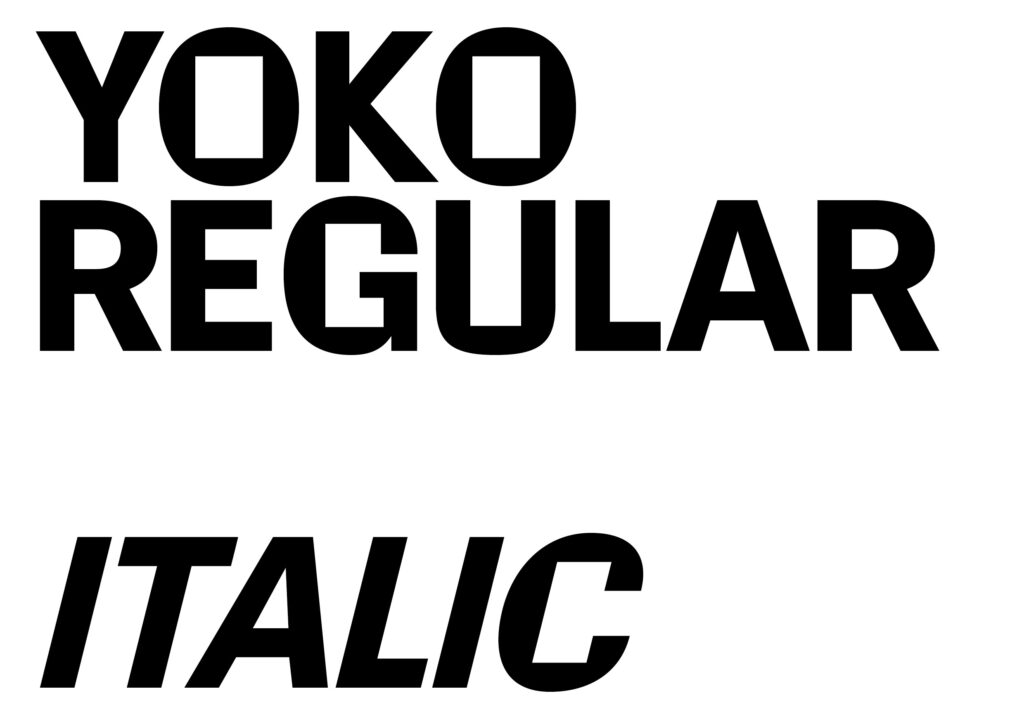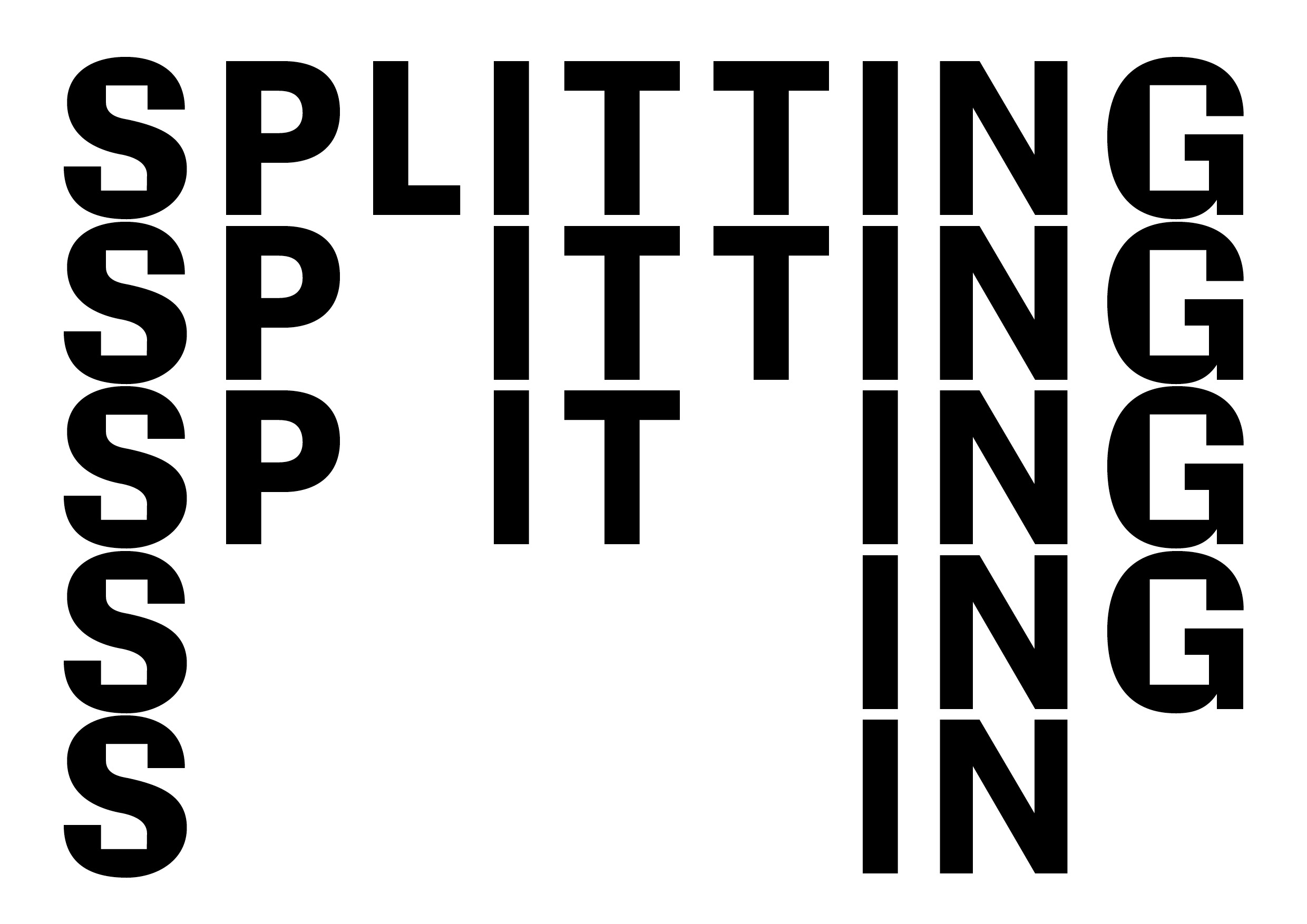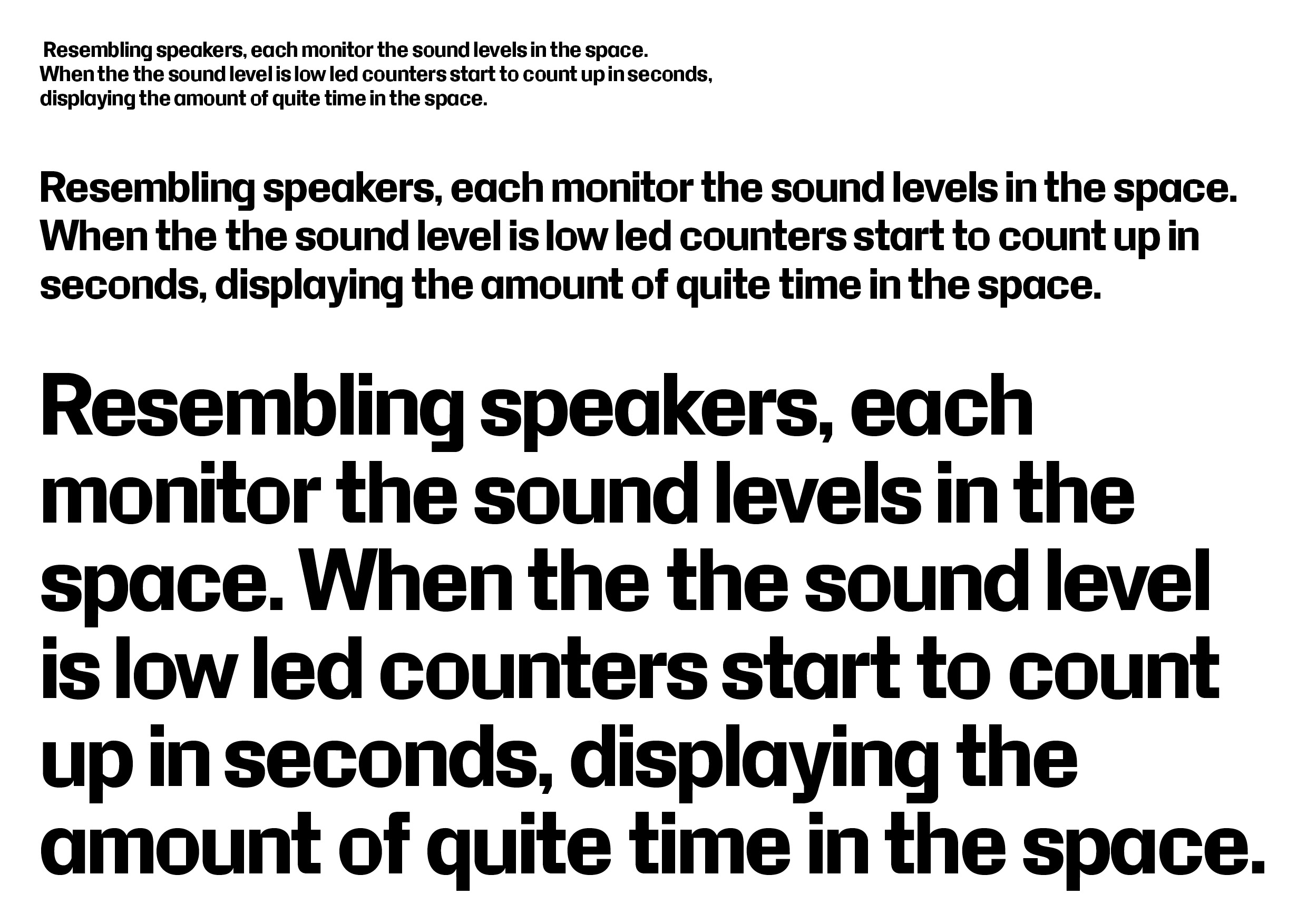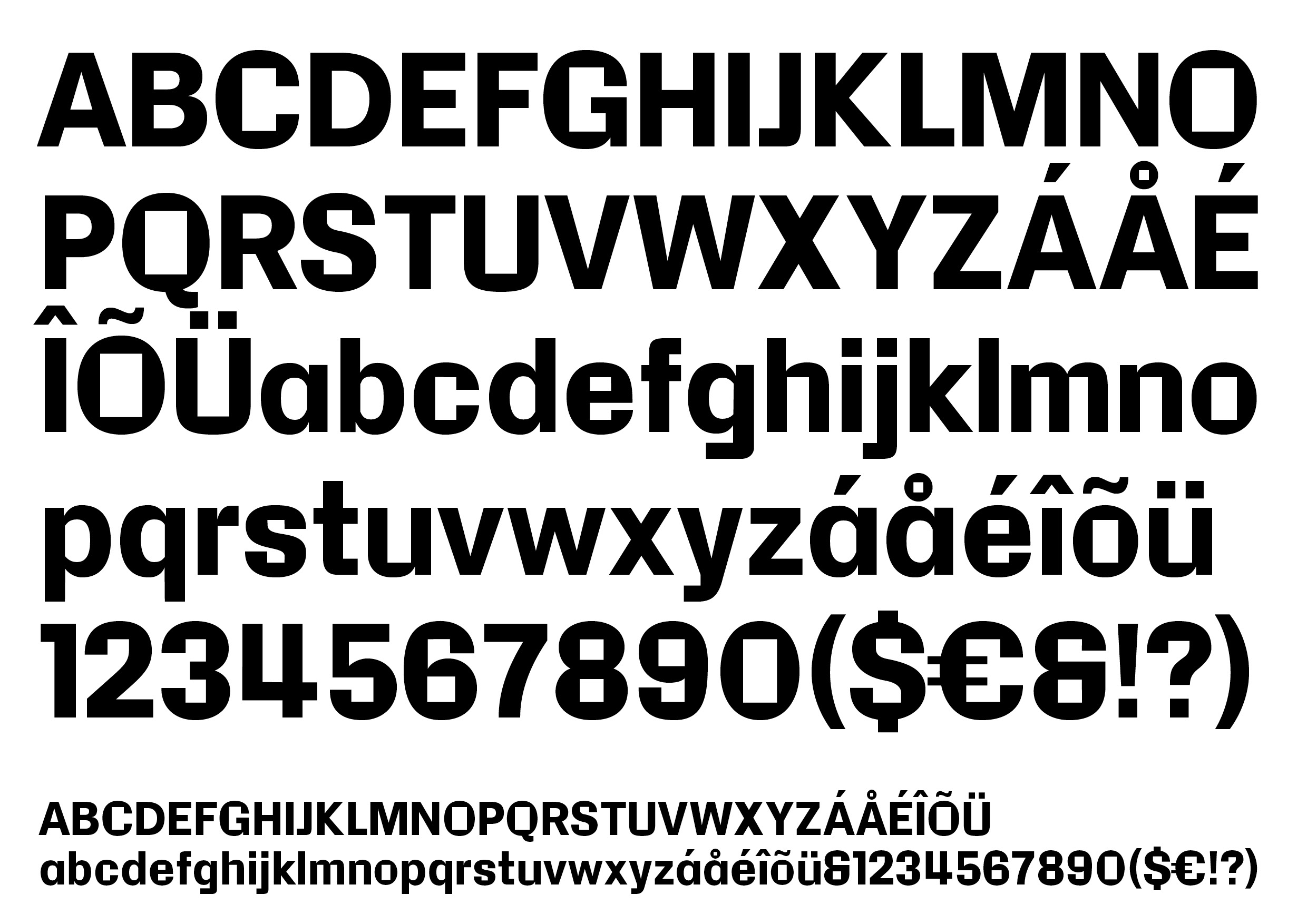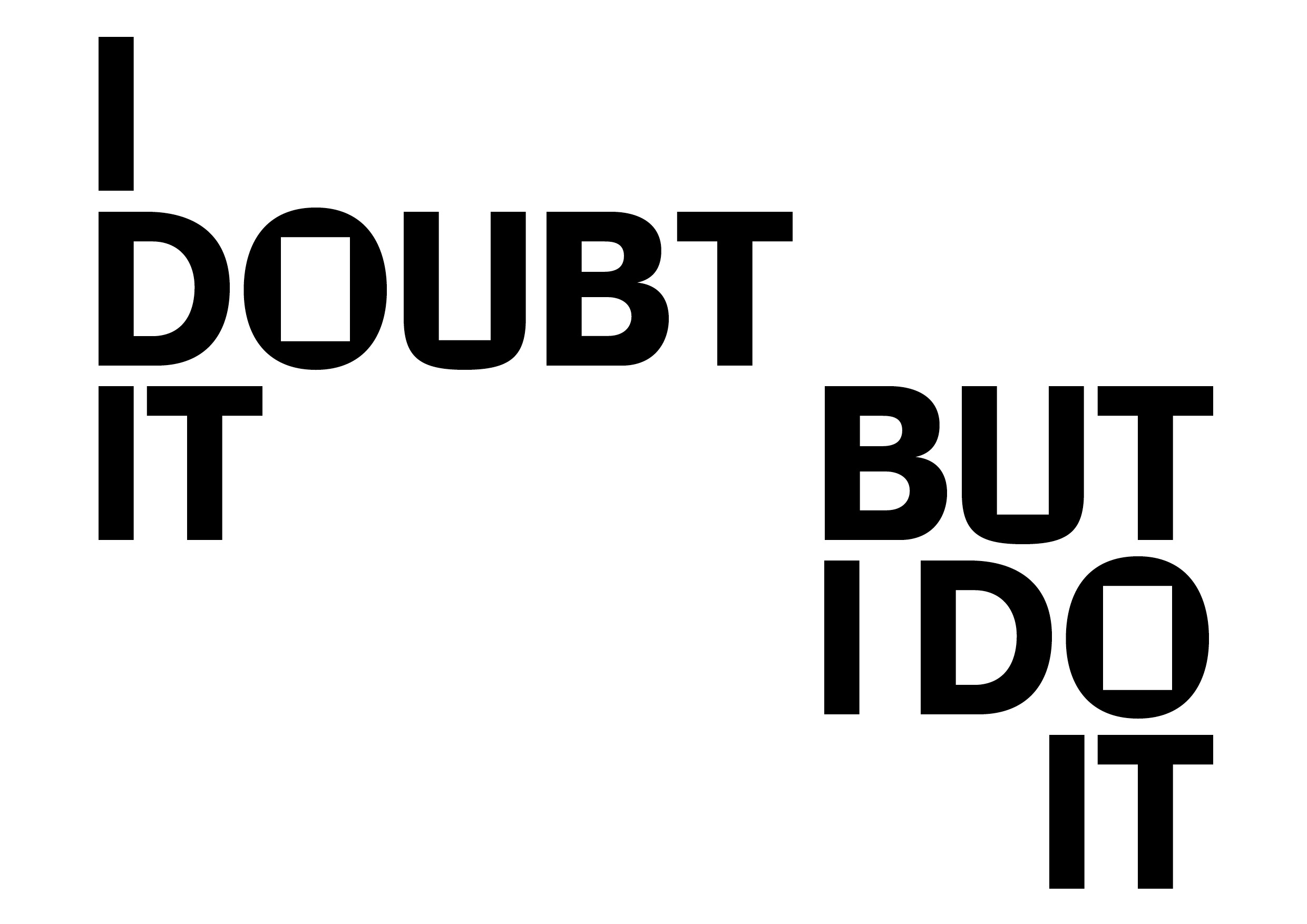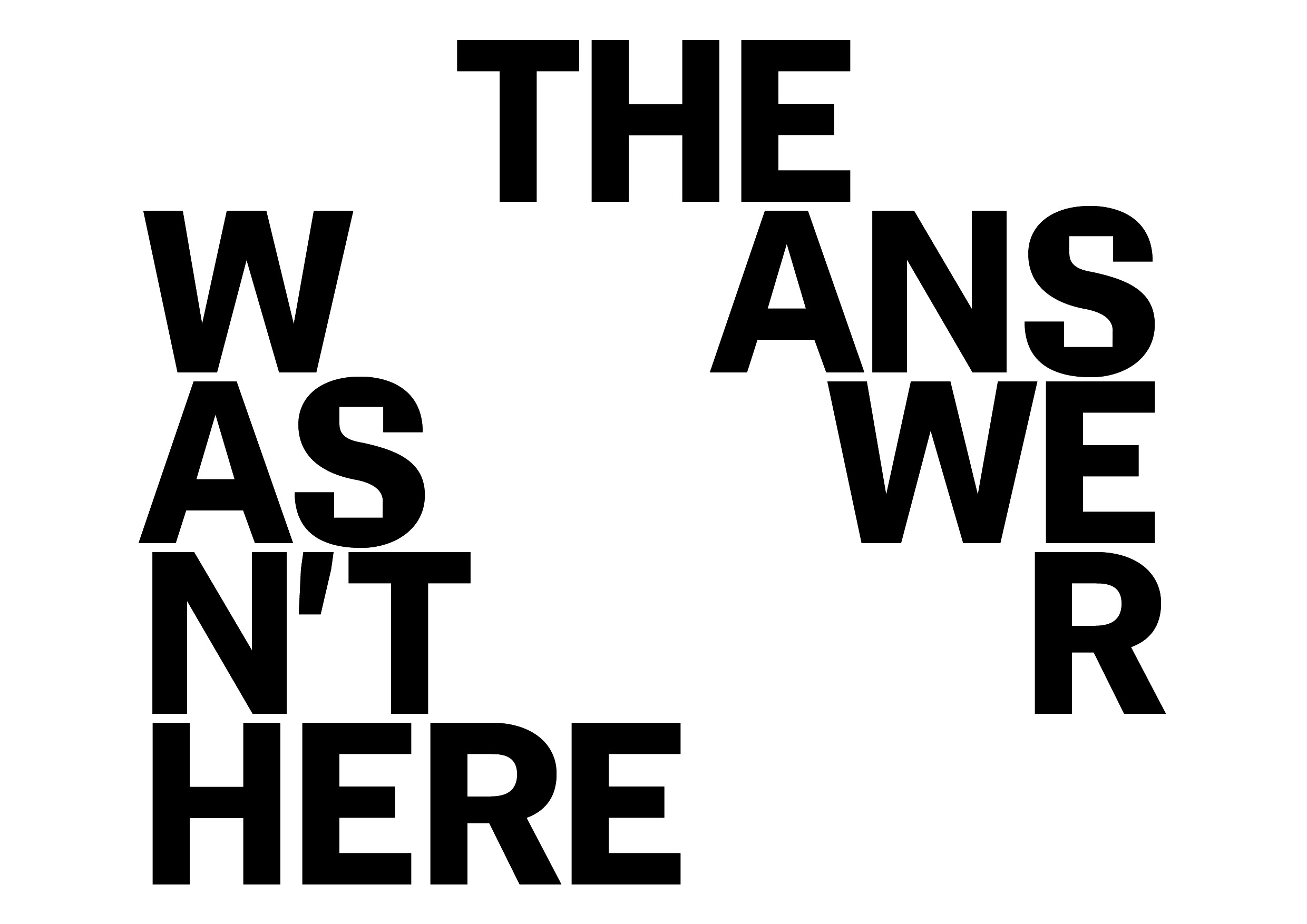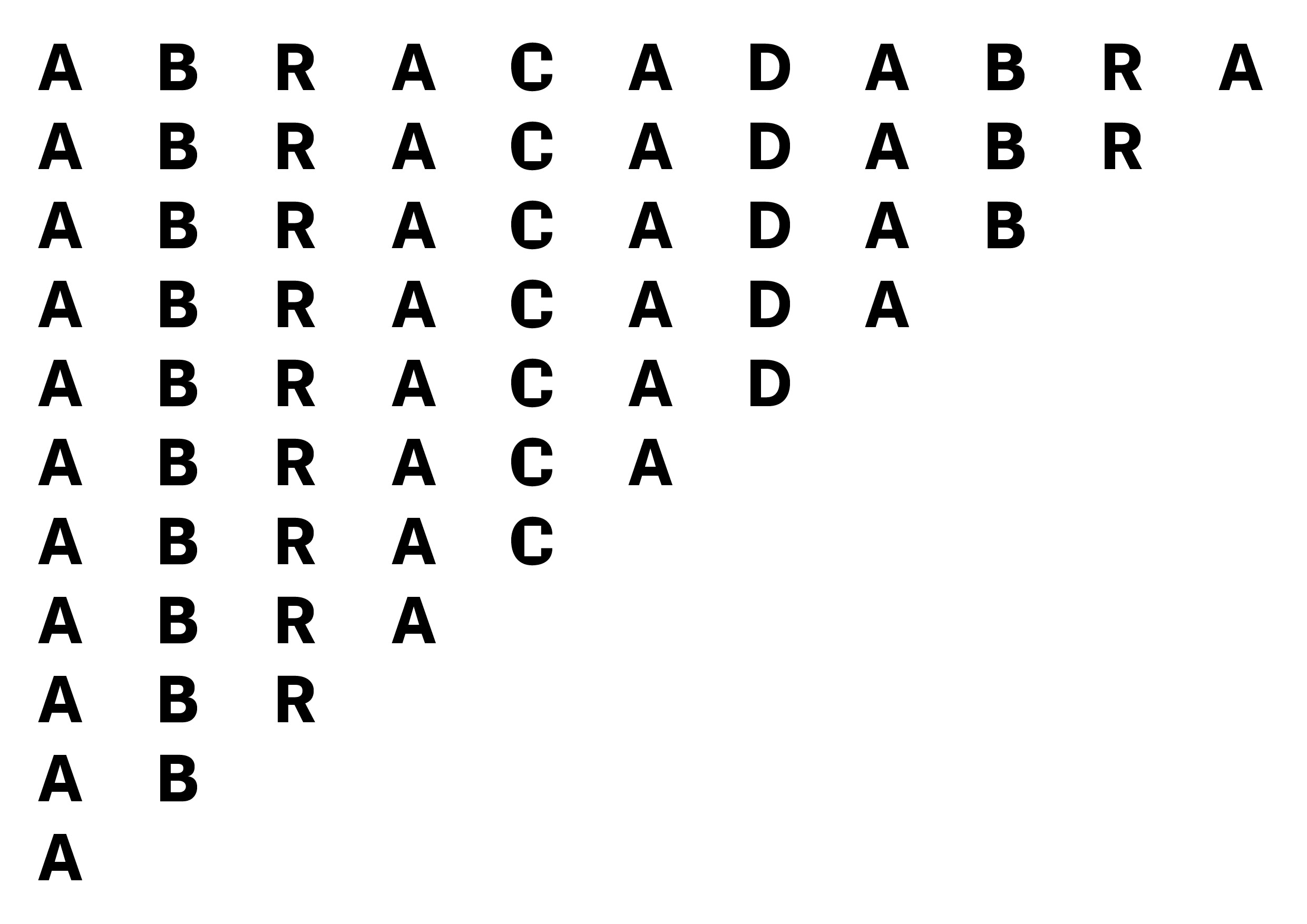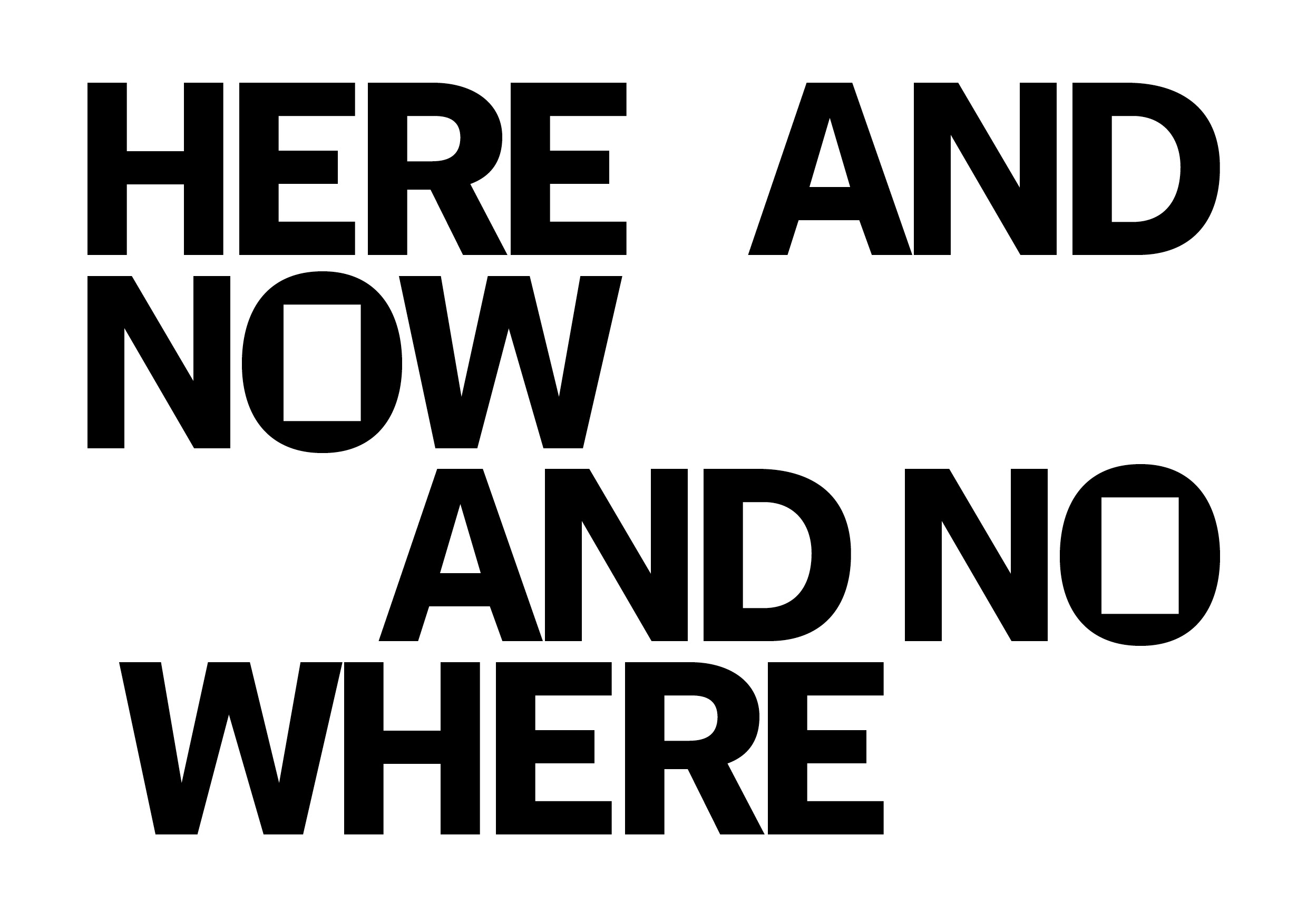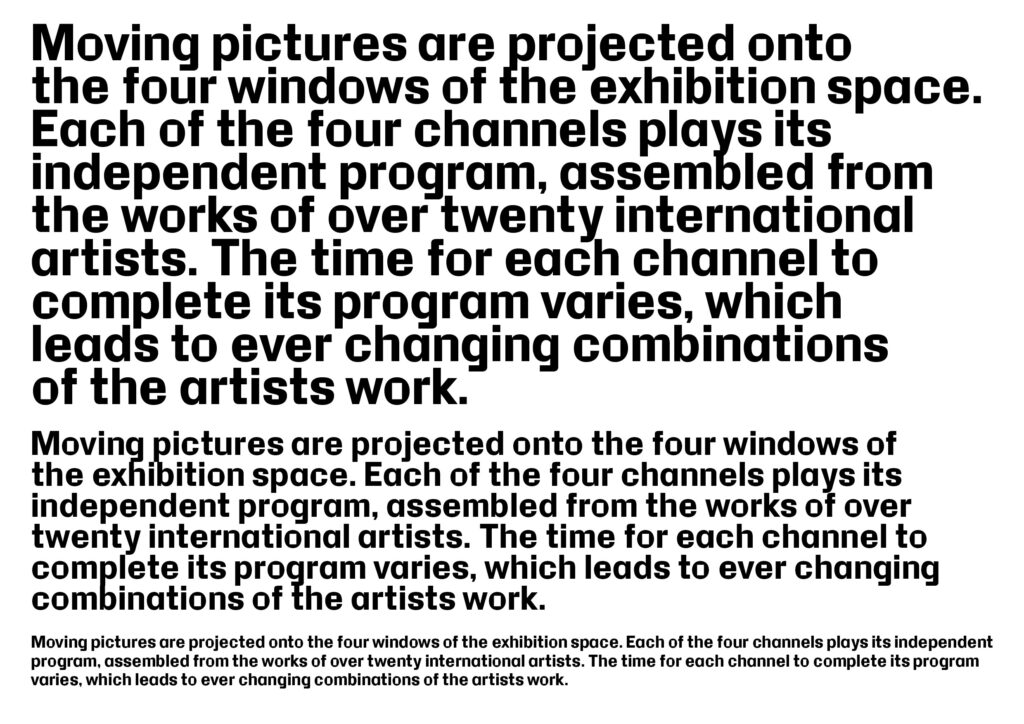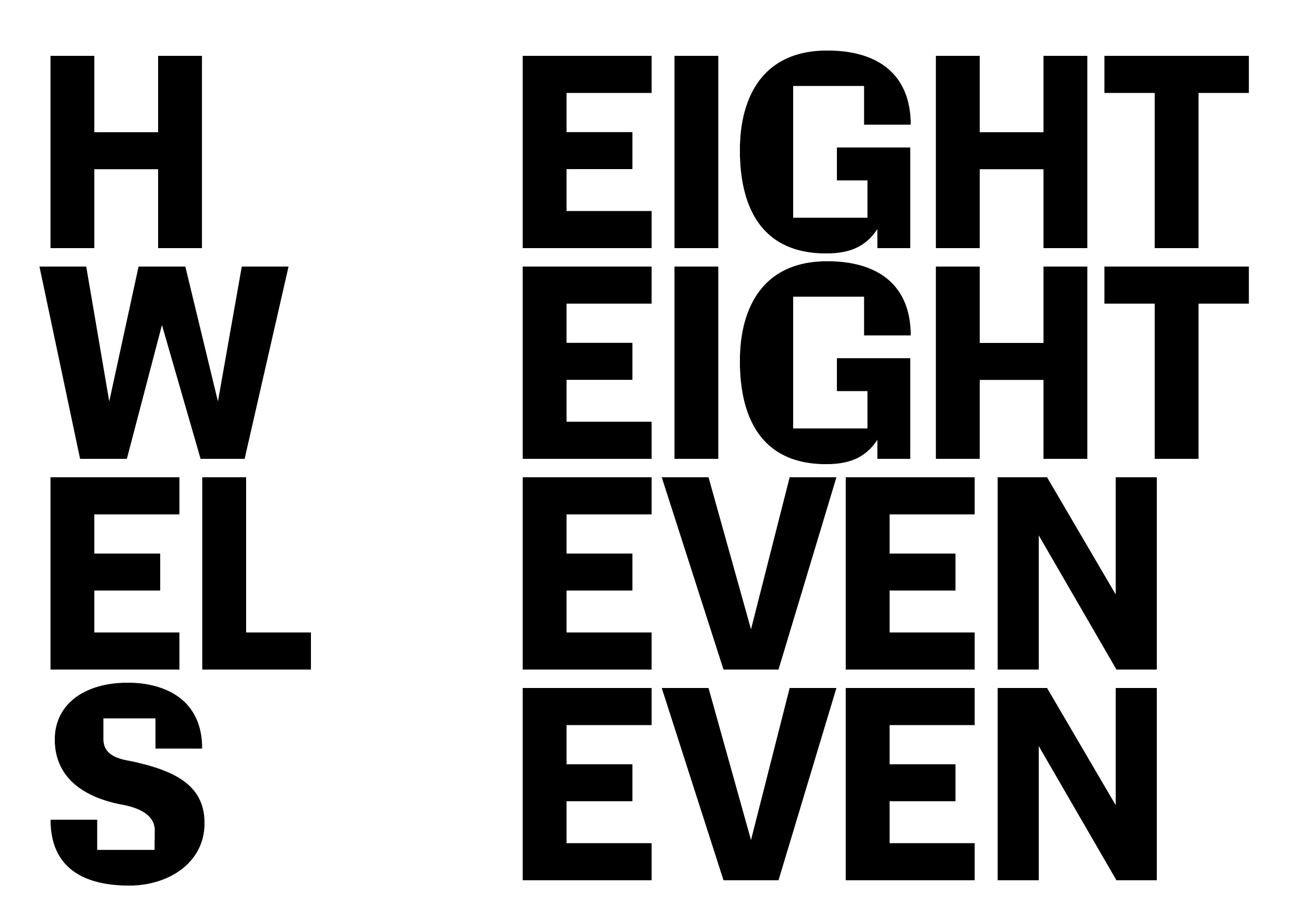
Yoko Mono
Yoko Mono is a typeface shaped by the poetic works of Yoko Ono and the visual language of concrete poetry, where letterforms themselves become the raw material for ideas. What sets Yoko Mono apart are its square-infused shapes that are reminiscent of a painter's brush strokes, creating a distinct texture that feels both graphic and expressive. Versatile yet unconventional, Yoko adapts to many contexts but shines most when used in a sculptural, experimental way. It invites exploration, encouraging designers to create compositions that feel bold, artistic, and visually captivating.